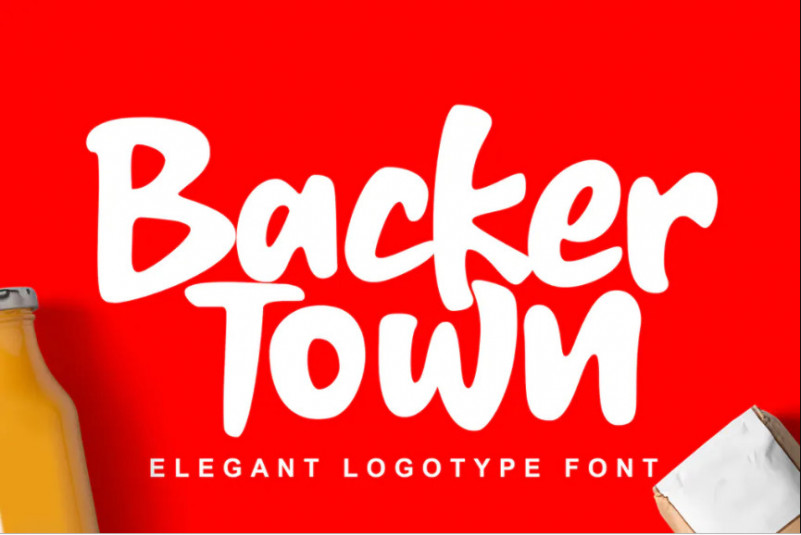
Backer Town Font
Backer Town is Natural Handlettering Font. This font is perfect for logo, quote, poster, playful lettering, for clothing, or any design projects.